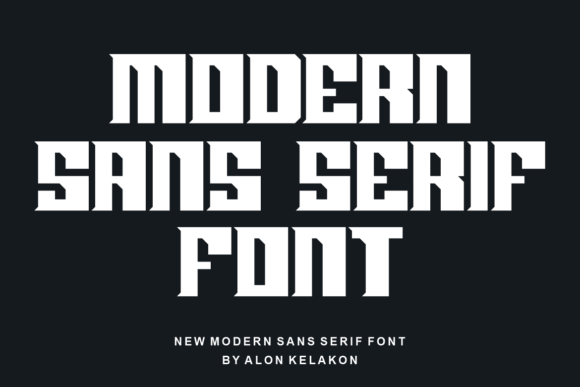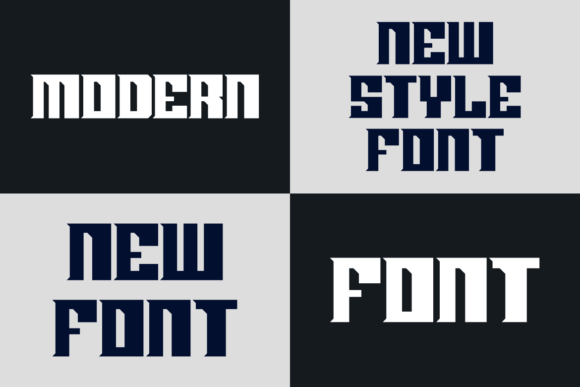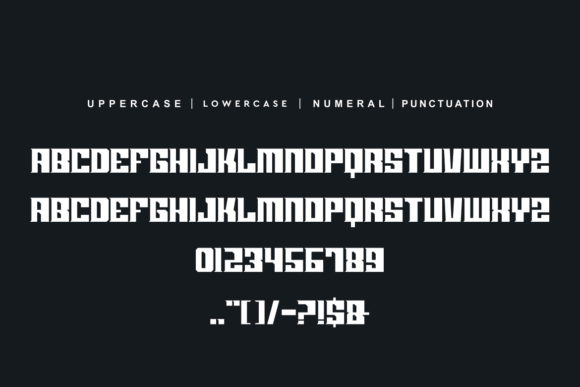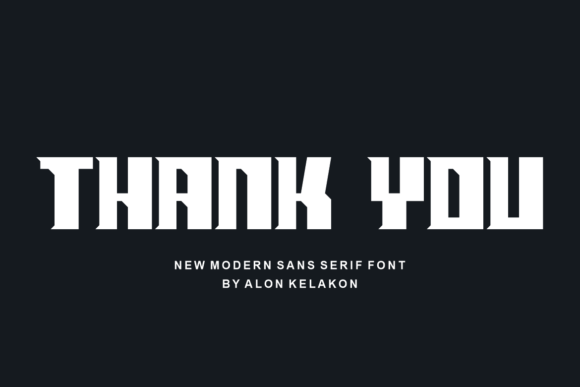
Introduction to Reskoga Font
Have you ever been in the middle of a creative project, staring at a blank page or screen, and suddenly, a spark of inspiration hits you? That’s exactly what happens when you have the perfect design resource at your fingertips. For designers like you, finding the right font can be the difference between a mediocre project and a masterpiece.
Enter Reskoga Font, a cool and bold display font that’s sure to elevate your creative ideas to new heights. This masterfully designed font is a game-changer for designers who crave high-quality, unique typography that makes a statement. With its transparent background and sleek design, Reskoga Font is perfect for adding a touch of sophistication to your next design project.
Whether you’re working on a free download or a commercial project, Reskoga Font is an invaluable asset that’s sure to impress. Its versatility and bold style make it an ideal choice for designers who want to add some personality to their work. Get ready to take your designs to the next level with Reskoga Font – your new go-to design resource.
Key Features of Reskoga Font
- Transparent background, allowing for easy integration with various design elements and backgrounds.
- Resolution-independent, allowing for seamless scaling and use in various design applications.
- Designed to be versatile, suitable for use in logos, branding, and other creative projects where a unique font is required.
Honest Review: Reskoga Font
I recently stumbled upon the Reskoga Font, and I must say, it’s been a game-changer for my design projects. The free download was a pleasant surprise, and I was impressed by the high quality of the font. One of the standout features is the transparent background, which makes it perfect for overlays and graphics.
- ✨ Unique and creative design: The Reskoga Font has a distinctive style that sets it apart from other fonts in my collection.
- ✨ Versatile: I’ve used it for both digital and print projects, and it’s worked beautifully every time.
- ✨ Easy to customize: The font is highly customizable, making it a great design resource for creative projects.
Overall, I’m impressed with the Reskoga Font, and I would highly recommend it to designers and creatives looking for a unique and high-quality font. Just be aware of the limitations mentioned above, and you’ll be good to go!
The Reskoga Font is a versatile and high-quality design resource ideal for various creative projects. It offers a transparent background, making it easy to integrate into different design elements.
For optimal results, use the Reskoga Font in conjunction with other design elements that complement its unique style. Experiment with different font sizes and colors to create visually appealing designs.
The Reskoga Font is suitable for a wide range of projects, including:
- Typography projects
- Branding and identity design